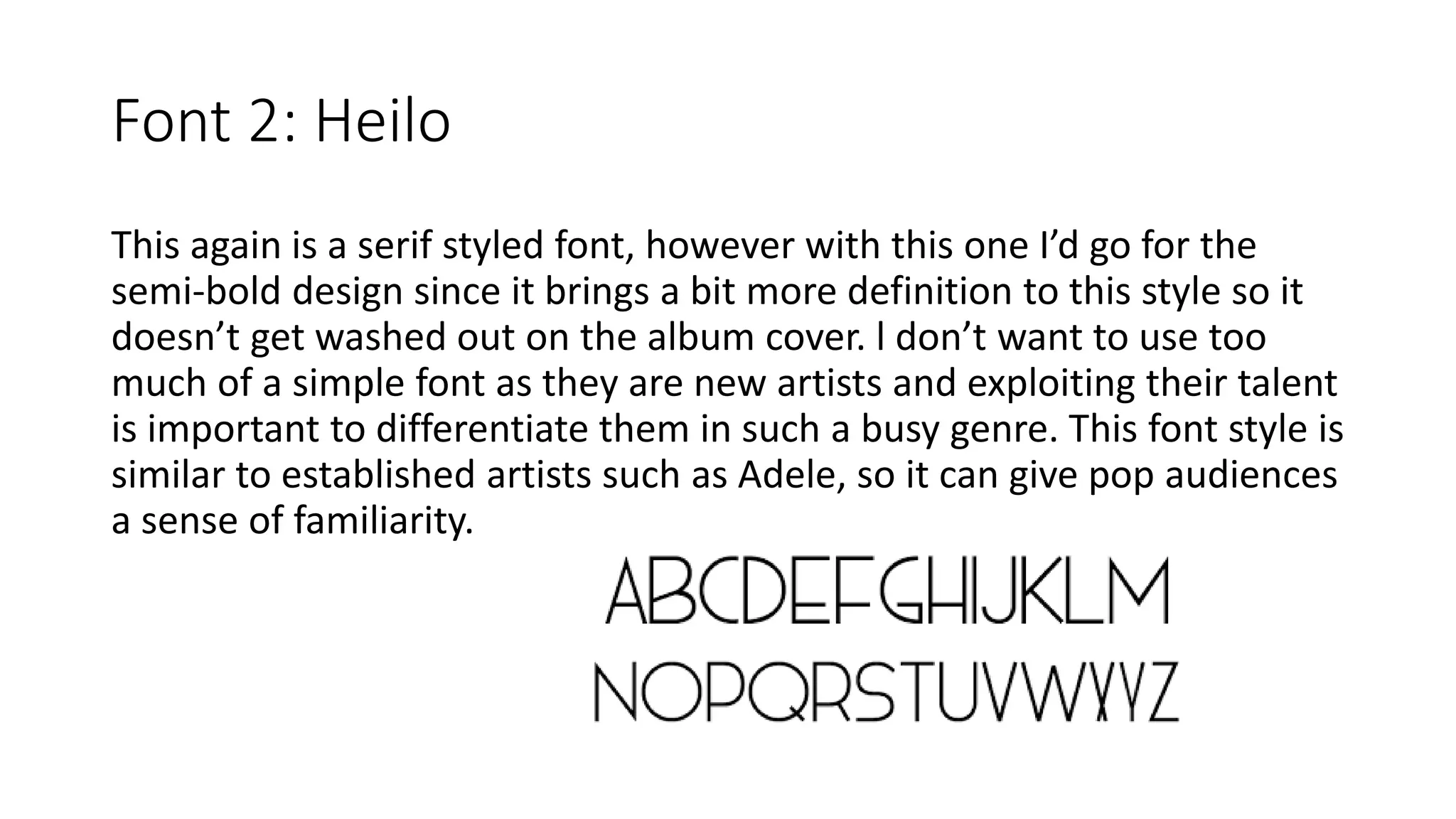
Example of fonts used by other artists similar
to ours;
What I’ve noticed
Looking at the style of fonts all these albums have used, they’ve all gone for
a simplistic theme, with either more interest in their names font rather then
the album title. They do this to create star image, creating a trade mark that
artist can be recognised by. The majority of the fonts are serif, to connote a
smooth feel for their album, while the san-serif fonts such as Christina Perri’s
album creates more interest and conveys more of what the album is about.
Potentially having multiple sides of the album being exposed to the
audience.
Elle Goulding, Ariana Grande and Adele have all gone for a capitalised font,
this perhaps makes it more easy to read as well as conveying a similar theme
of love, as this is a style of song all artists share. It also characterises their
name in the pop genre, how they themselves are big within the pop industry.
Possible fonts for the artist’s names.
The first potential font I’d use is ‘KG Somebody that l used to know’.
This is a serif styled font is more dainty and fragile then other fonts.
This reminds me of a typical pop artist’s font style, so it’d be good for
recognising the genre these artists are in especially since they are new
to the pop genre. I’d use this for the artists name because it’s quite
plain and simple which could be interpreted that this album is there
talent exposed, there’s nothing artificial or fake about their music just
simply talent.
Font 2: Heilo
This again is a serif styled font, however with this one I’d go for the
semi-bold design since it brings a bit more definition to this style so it
doesn’t get washed out on the album cover. l don’t want to use too
much of a simple font as they are new artists and exploiting their talent
is important to differentiate them in such a busy genre. This font style is
similar to established artists such as Adele, so it can give pop audiences
a sense of familiarity.
Font 3: Chronic Delivery
For my final choice I’ve chosen something different to the other fonts,
I’ve gone for a san-serif styled font. I’ve done this because perhaps the
way to gain audience is to use a interestingly designed font for the
artist’s names so that this creates curiosity to the readers who’ll see
the advert/digipak. Creating star image for the artists. This is also a font
similar to what Ariana Grande uses, creating industry links again giving
a audience a familiar style they’d already recognise.
Font 1: TheGanesha
This is a san-serif font I’ve not seen in the pop genre. So this would be a
ideal font to create a more defines star image. Also the appearance of
this font gives off a more fairy tale/mysterious look to it, which is the
style l want to connote with both the digipak and promo poster. The
curved edges gives a more cryptic appeal to the album, allowing a more
complex meaning to be interpreted by the audience. Breaking the
generic conventions in the pop genre.
Font 2: Beacon
Again this is a san-serif font to contrast with the serif fonts of the artists
names. As this will be a debut album choosing the right font is
important, and this style of font is something that mirrors artists star
image we created in our music video also the album would be easily
recognisable as pop. Again, Ariana Grande uses a similar styled font for
her latest album ‘My Everything’, so this would create cohesion
between established existing products.
Font 3: Brilliant
Finally I’ve chosen this font for similar reasons I chose the last font,
because it reflects the star image we’ve tried to portray in the music
vide. A star image of relaxed, relatable girls who are purely having fun
creating songs. The appeal of a hand written font, again reinforces the
idea that the girls talent isn’t artificial they’ve done everything
themselves and worked hard to get to the point of releasing their first
album.
Fonts For my Digipak